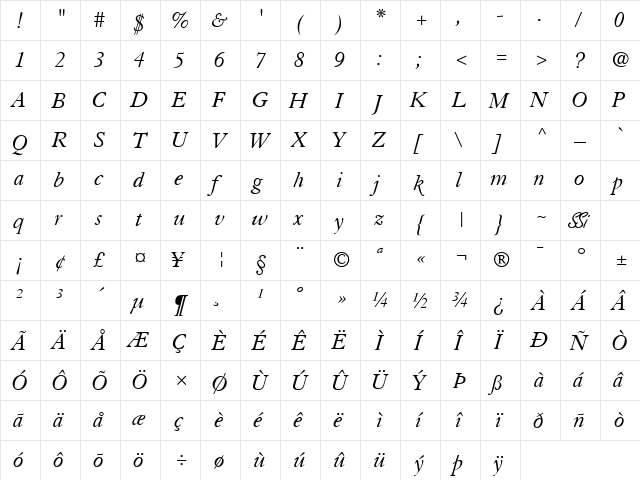
Tiasco SSi Italic
Design Context for Tiasco SSi Typeface
Tiasco SSi is a composed and adaptable typeface that performs quietly and consistently across a wide range of design contexts. Its italic angle brings a sense of urgency and motion to the letterforms.
Pro Tip: Use Tiasco SSi for emphasis, pull quotes, and subheadings where its slanted energy can add rhythm to the layout.